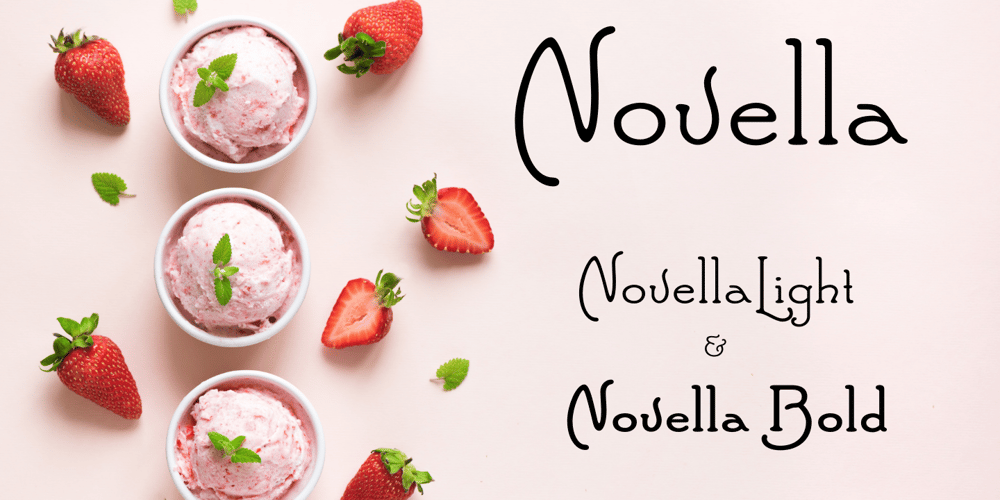
Novella Font Family was designed by Holly Goldsmith and published by FontHaus. Novella contains 2 styles and family package options. Novella has always been one of Fonthaus’ more popular period (Art Nouveau) fonts. The style of Novella captures the essence of typography that was popular at the turn of the 20th century (1890-1905). Its curvilinear lines are organic and floral, complimenting the work of Louis Comfort Tiffany, Charles Rennie Mackintosh and Gustav Klimt among others of the time.